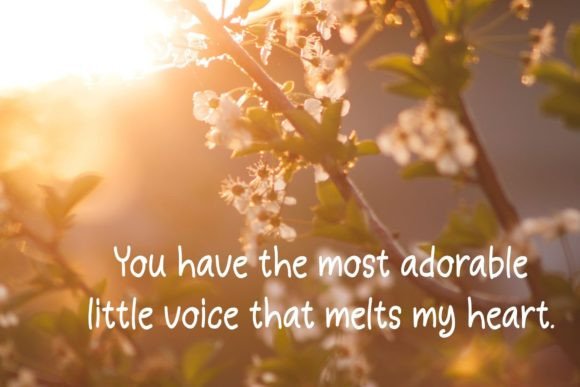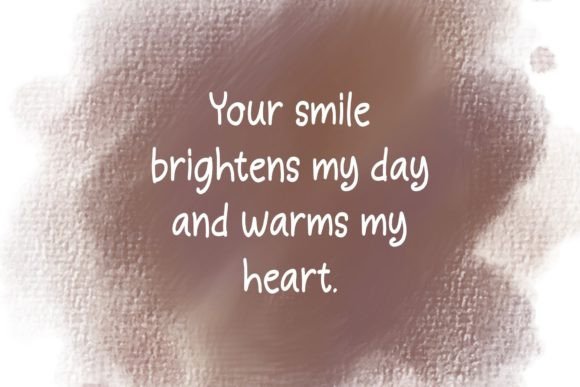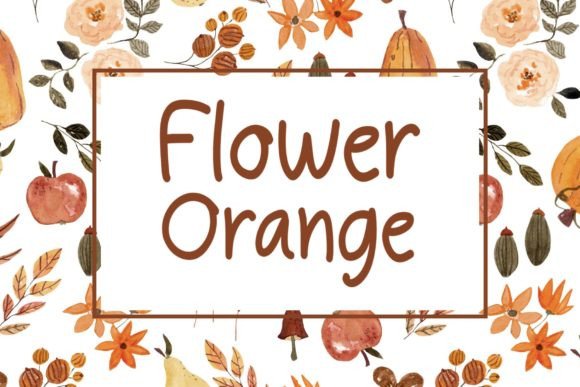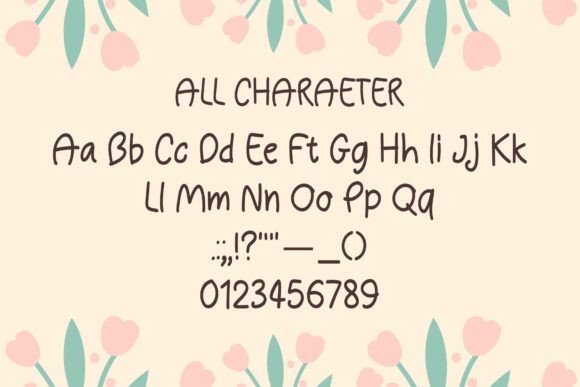
Introduction to Orange Flower Font
Introducing the captivating “Orange Flower” font, a delightful typeface inspired by the vibrant beauty of blooming flowers.
Infused with the essence of nature’s most cheerful color, this font will add a touch of zest and elegance to your designs With its graceful curves and intricate details, “Orange Flower” font embodies the delicate petals of an enchanting orange blossom.